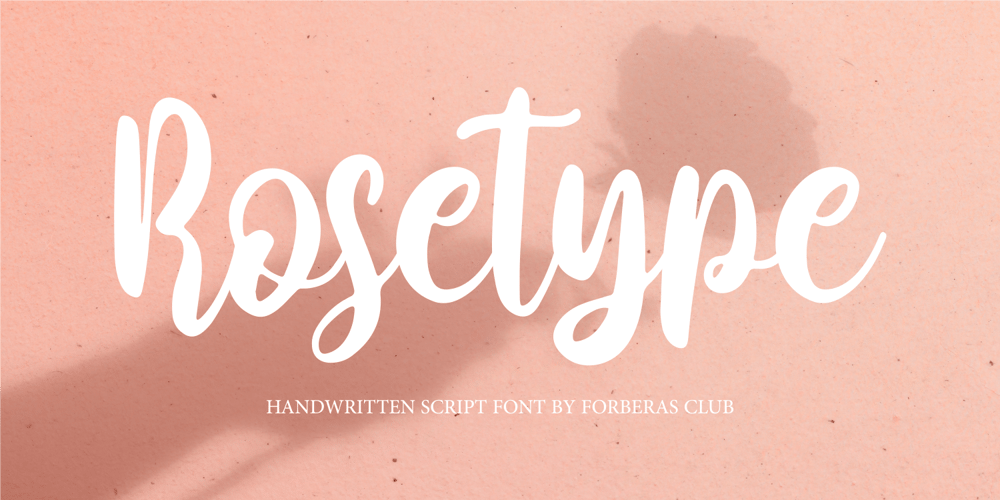
Rosetype Font Family was designed by ANGGI HERMAWAN and published by Forberas Club. Rosetype contains 1 styles and family package options. Rosetype font create with carefully. Can be use for wedding party, invitation, memorable moment, love story and many more with special moment.